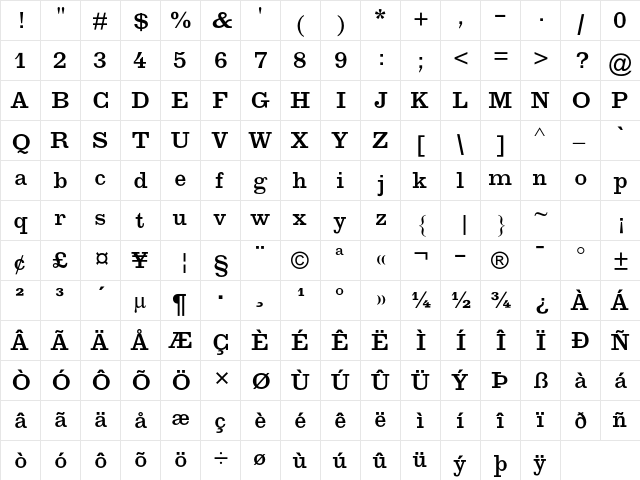
Egyptian MT Std Extended Font Preview
Egyptian MT Std Extended
Egyptian MT Std Extended Font Details
| Style | Extended |
| Foundry | Agfa Monotype Corporation |
Design Context for Egyptian MT Std Typeface
Egyptian MT Std features prominent, blocky serifs that give it a confident, grounded presence — equally at home in editorial settings and bold branding work.
Suited to magazines, political campaign materials, bold packaging, and any setting where authority matters.
Pro Tip: Use Egyptian MT Std for headlines and subheadings where its slab serifs can make an impression. It also holds up well in mid-size body copy thanks to its sturdy construction.